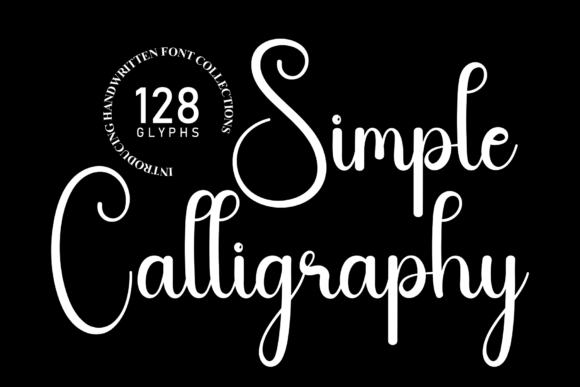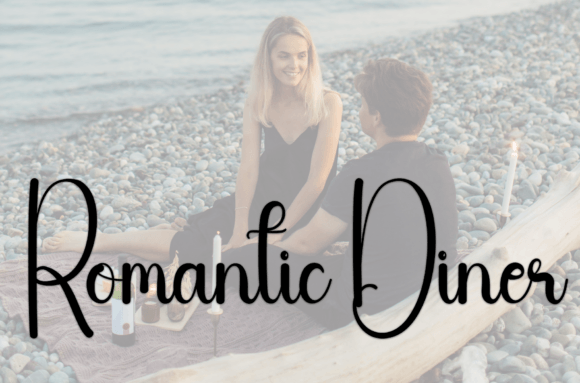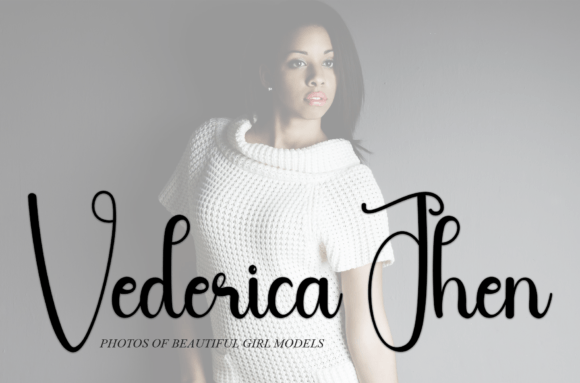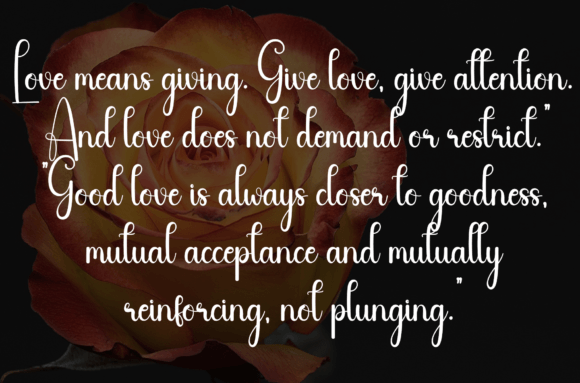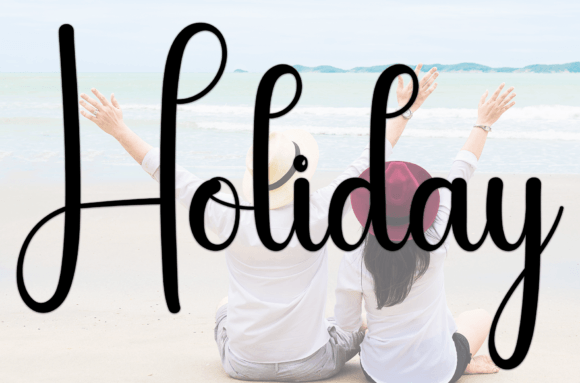
Simple Calligraphy
About Simple Calligraphy
Simple Calligraphy is a sweet handwritten font. Friendly and cute, this font is ideal for writing wedding invitations, cards, or any other design that might need a fun touch!